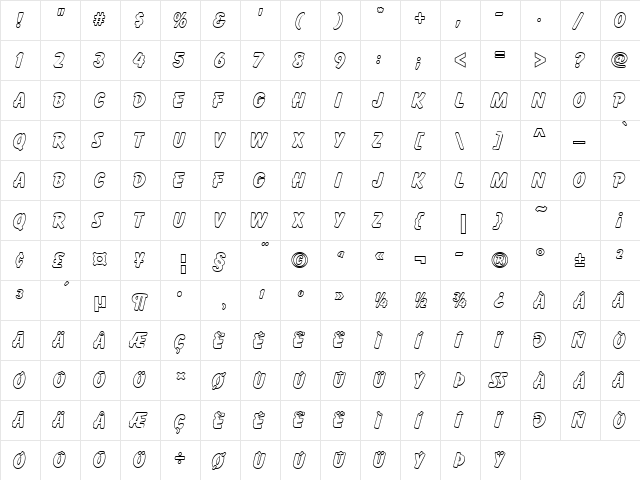
Balloon Becker Outline Ext Bold Regular Font Preview
Balloon Becker Outline Ext Bold Regular
Design Context for Balloon Becker Outline Ext Bold Typeface
Balloon Becker Outline Ext Bold brings ornamental detail and strong personality to headlines and identities, where visual impact matters more than quiet functionality. Its bold stroke weight gives it real presence on the page.
Font Pairing: Pair with a clean neutral sans-serif for body copy to let Balloon Becker Outline Ext Bold's character lead without overwhelming the composition.
Pro Tip: Use Balloon Becker Outline Ext Bold exclusively at display sizes — it was designed to be seen, not read at length. Let a neutral companion handle body copy.